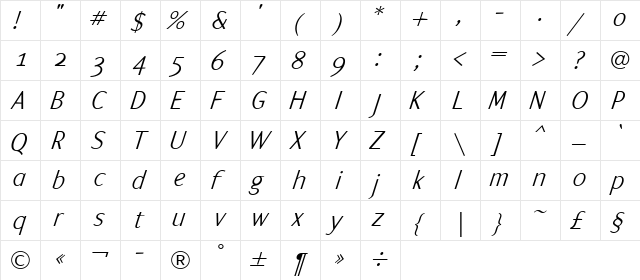
ArtemiusSans SN Light TT Regular Italic Font Preview
Design Context for ArtemiusSans SN Light TT Typeface
ArtemiusSans SN Light TT offers clean, dependable letterforms without strong stylistic allegiance, making it a practical choice for designers who need flexibility. The dynamic lean of this cut emphasises speed and emphasis in any layout. The delicate stroke weight brings airiness and refinement to layouts.
Pro Tip: Use ArtemiusSans SN Light TT for emphasis, pull quotes, and subheadings where its slanted energy can add rhythm to the layout.